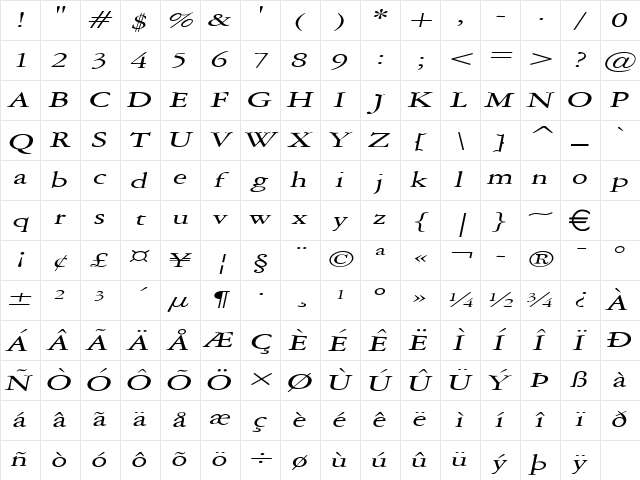
AmethystExtended Italic
Design Context for AmethystExtended
AmethystExtended is a composed and adaptable typeface that performs quietly and consistently across a wide range of design contexts. The slanted form adds forward momentum and visual energy.
Pro Tip: Use AmethystExtended for emphasis, pull quotes, and subheadings where its slanted energy can add rhythm to the layout.